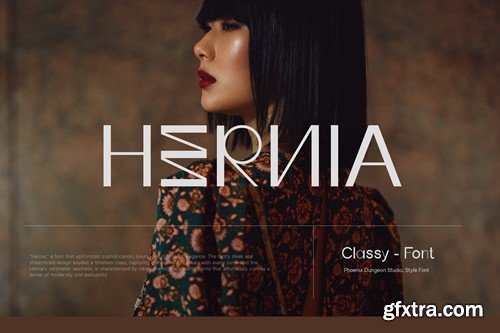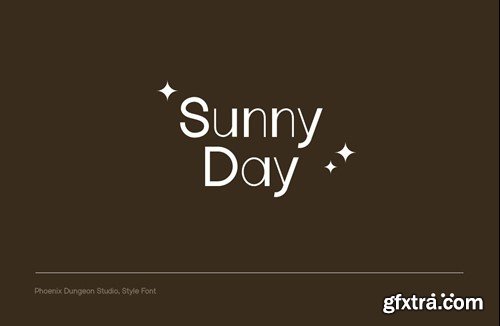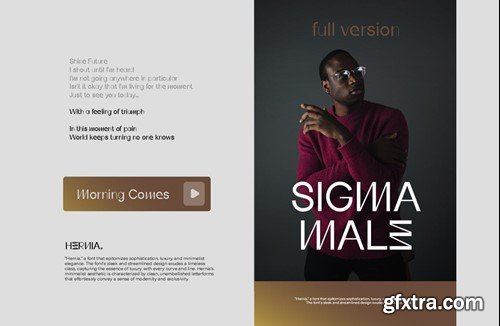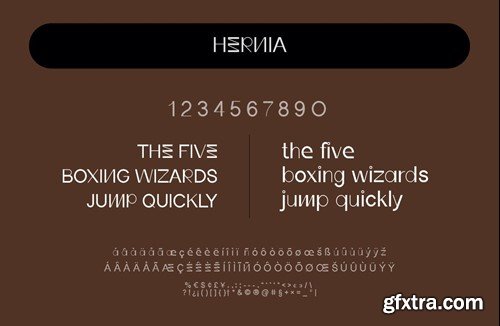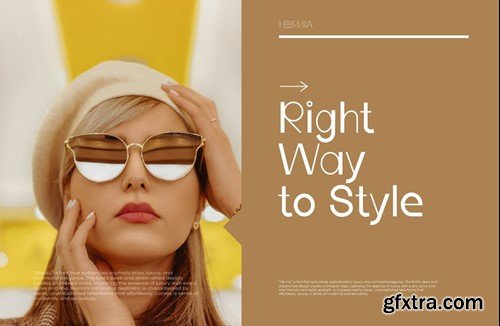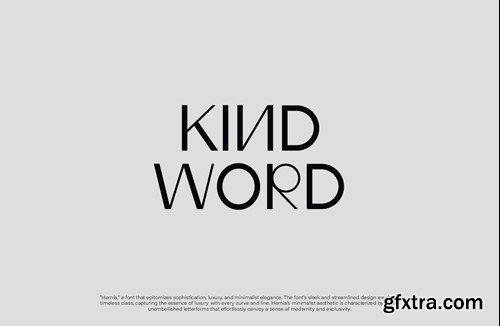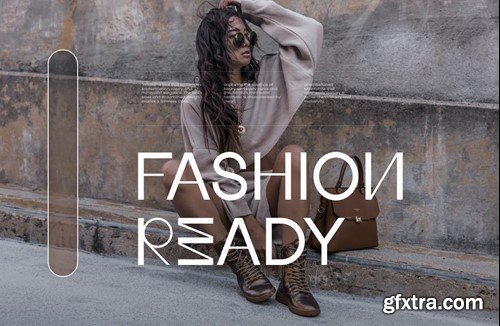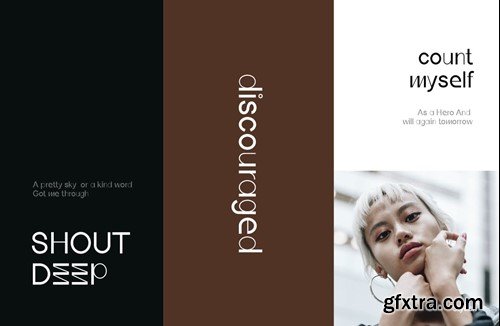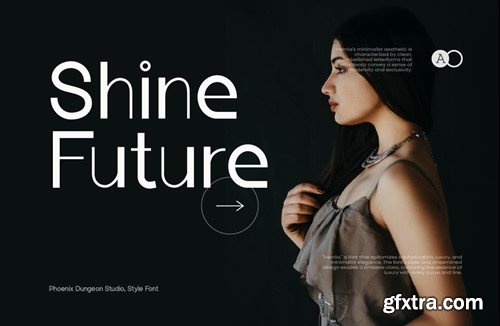
Hernia Font RSW9Z5X
Hernia Font
Hernia font epitomizes sophistication, luxury, and minimalist elegance. The font's sleek and streamlined design exudes a timeless class, capturing the essence of luxury with every curve and line. Hernia's minimalist aesthetic is characterized by clean, unembellished letterforms that effortlessly convey a sense of modernity and exclusivity. What’s in the package : Thank you